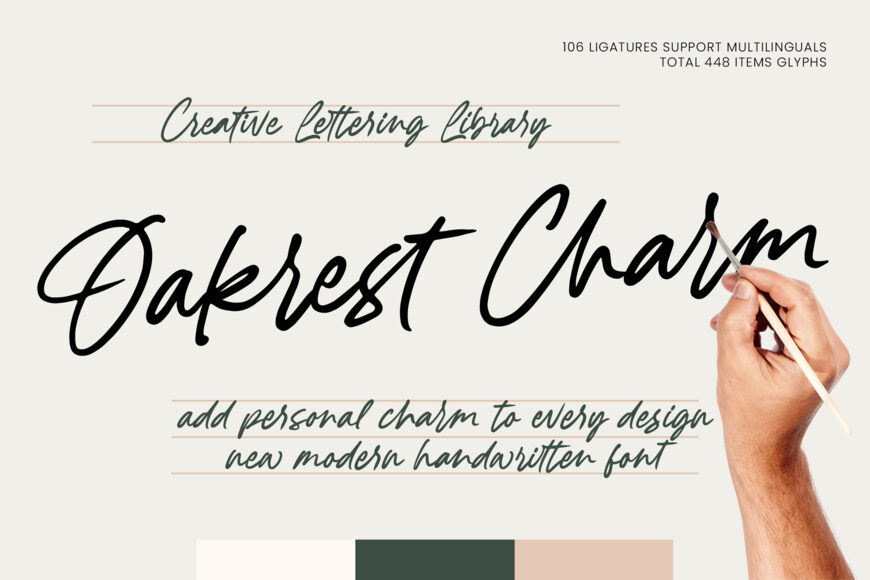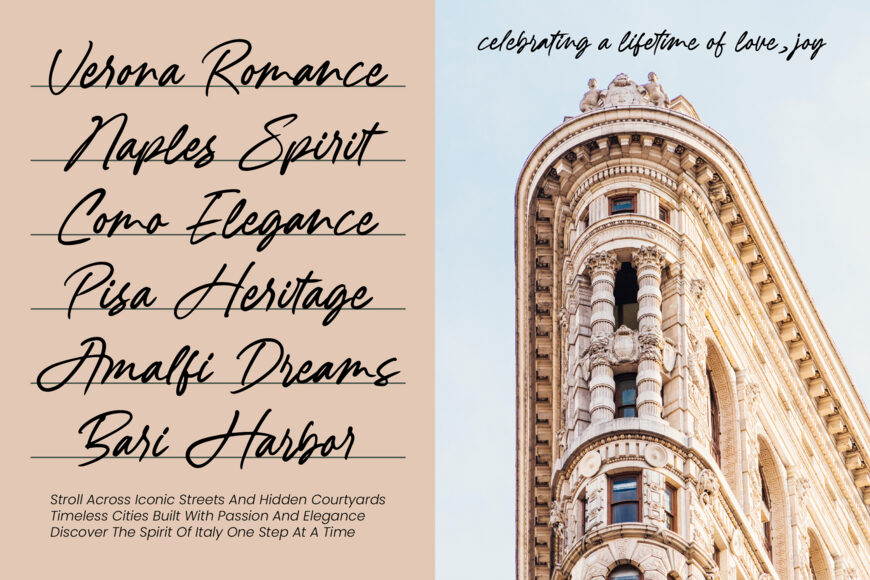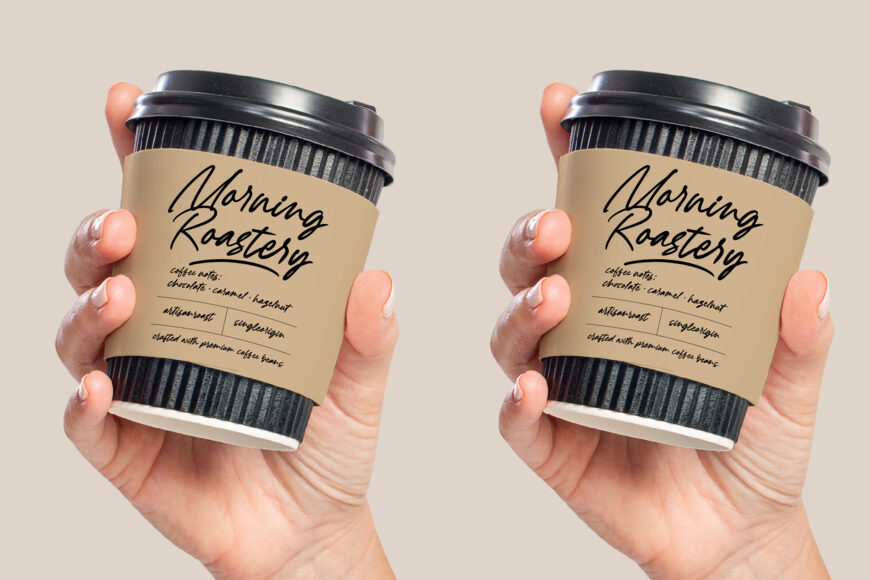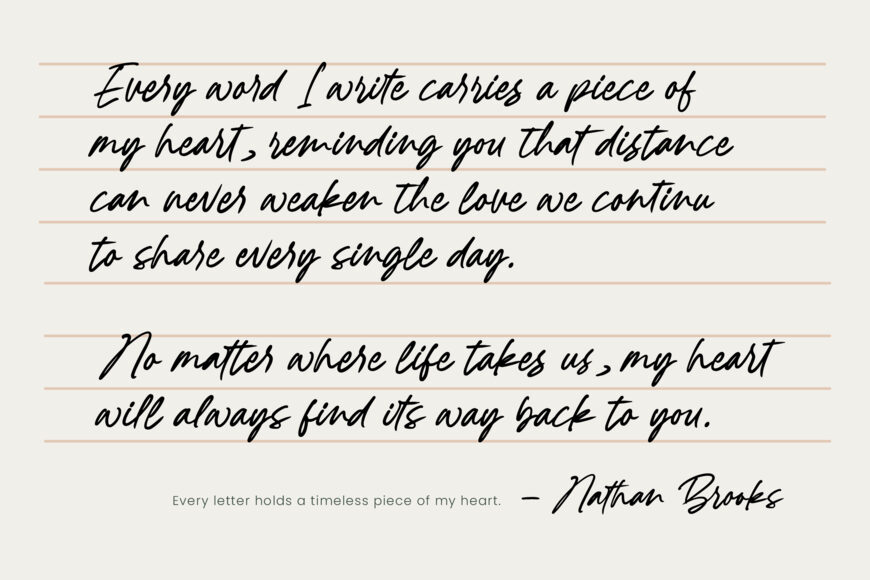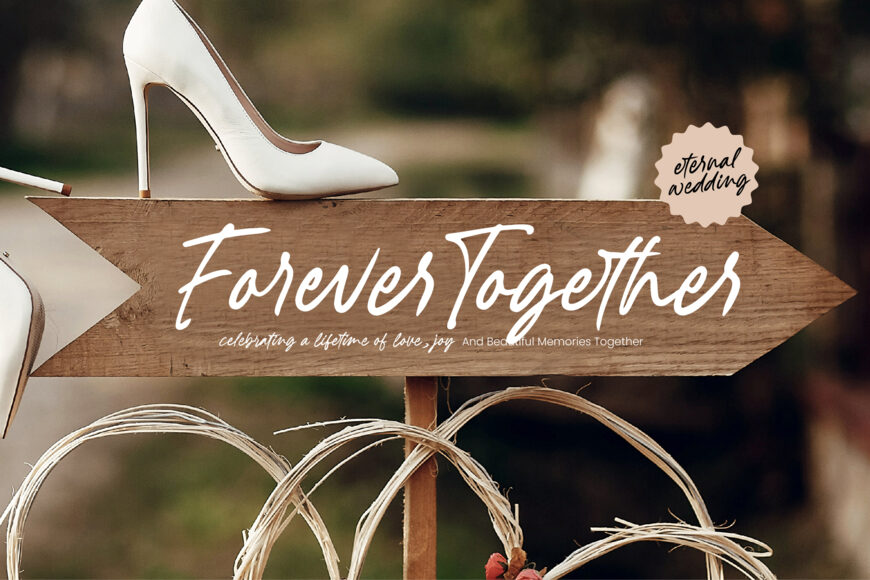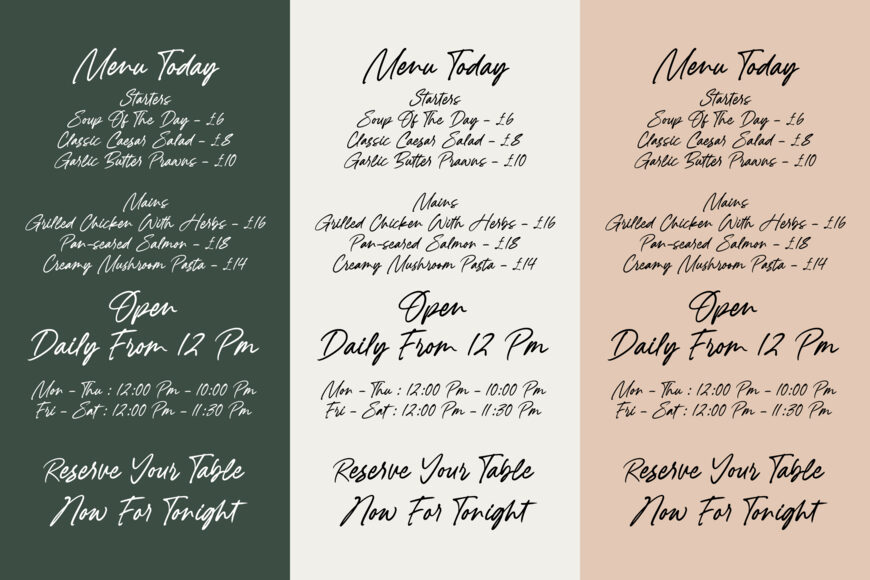
Elevate your design with Oakrest Charm, a modern handwritten font that combines organic strokes with sophistication. Its natural flow and expressive personality add a human touch to digital designs.
Perfect for luxury packaging, wedding stationery, and logos, this font offers artistic flair and a premium aesthetic. With extensive multilingual support and over 448 glyphs, it seamlessly adapts to global markets, ensuring dynamic and cohesive typography across languages.